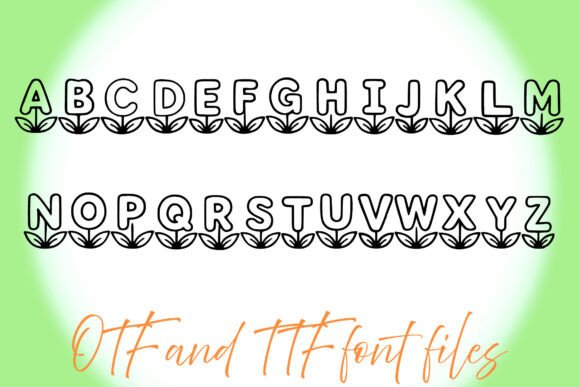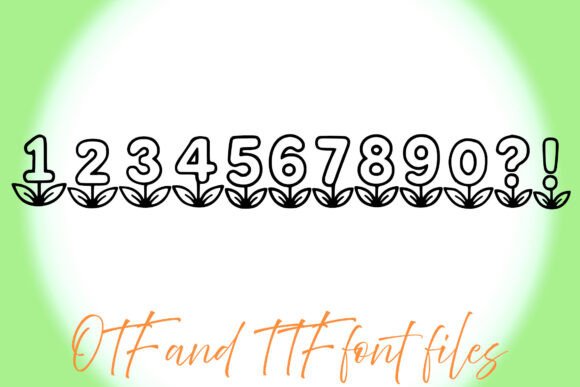
Introducing Flower Simple Font: The Perfect Addition to Your Spring Designs
Are you looking for a font that embodies the playful charm and floral freshness of spring? Look no further than Flower Simple Font, a delightful display typeface that is sure to add a touch of whimsy to your designs. In this article, we’ll take a closer look at the unique features of Flower Simple Font and explore the many ways you can use it to bring joy and vibrancy to your creative projects.
A Font that Blooms with Personality
Flower Simple Font is a one-of-a-kind typeface where each letter blossoms from a leafy stem, creating a delightful and eye-catching effect. The font’s design is characterized by bold shapes and a vibrant feel, making it perfect for designs that require a playful and cheerful touch. Whether you’re working on a spring-themed project, a kids’ craft, or a gardening graphic, Flower Simple Font is sure to add a pop of personality and charm.
A Versatile Font for a Variety of Projects
One of the best things about Flower Simple Font is its versatility. The font’s playful and whimsical design makes it suitable for a wide range of projects, including:
- Spring-themed designs: Add a touch of springtime charm to your designs with Flower Simple Font’s floral and leafy elements.
- Kids’ projects: The font’s playful and colorful design makes it perfect for kids’ crafts, educational materials, and activity sheets.
- Classroom decor: Use Flower Simple Font to create eye-catching posters, charts, and displays that will add a touch of fun and personality to your classroom.
- Gardening graphics: The font’s leafy and floral design makes it a natural fit for gardening graphics, including logos, posters, and social media graphics.
- Cheerful branding: Add a touch of whimsy and personality to your brand with Flower Simple Font’s bold and vibrant design.
Key Features of Flower Simple Font
So, what makes Flower Simple Font so special? Here are just a few of the key features that set it apart:
- Unique letter design: Each letter in Flower Simple Font blossoms from a leafy stem, creating a delightful and eye-catching effect.
- Bold shapes: The font’s bold shapes and vibrant feel make it perfect for designs that require a playful and cheerful touch.
- Floral freshness: The font’s floral and leafy design elements add a touch of springtime charm and freshness to your designs.
- Playful charm: Flower Simple Font’s playful and whimsical design makes it perfect for designs that require a touch of personality and charm.
Tips for Using Flower Simple Font
Now that we’ve explored the unique features and versatility of Flower Simple Font, here are a few tips for using it in your designs:
- Pair it with complementary fonts: Flower Simple Font works best when paired with complementary fonts that provide a nice contrast to its playful and whimsical design.
- Use it in moderation: While Flower Simple Font is perfect for adding a touch of personality and charm to your designs, it’s best used in moderation to avoid overwhelming the viewer.
- Experiment with colors: The font’s bold and vibrant design makes it perfect for experimenting with different colors and color combinations.
In conclusion, Flower Simple Font is a delightful display typeface that is sure to add a touch of whimsy and personality to your designs. With its unique letter design, bold shapes, and floral freshness, it’s perfect for a wide range of projects, from spring-themed designs to kids’ crafts and gardening graphics. Whether you’re a designer, crafter, or educator, Flower Simple Font is a great addition to your font collection.
So why not give Flower Simple Font a try? With its playful charm and versatility, it’s sure to bring joy and vibrancy to your creative projects.